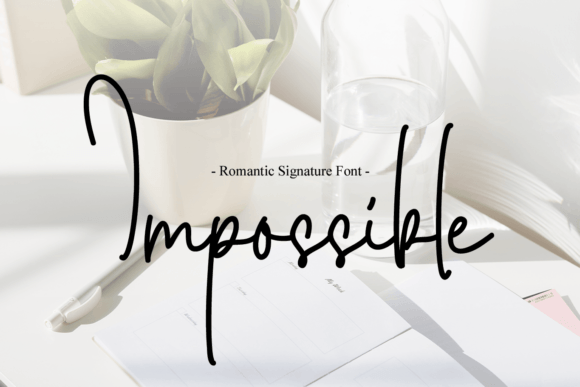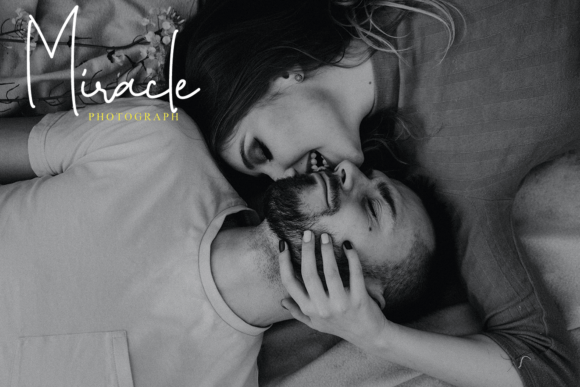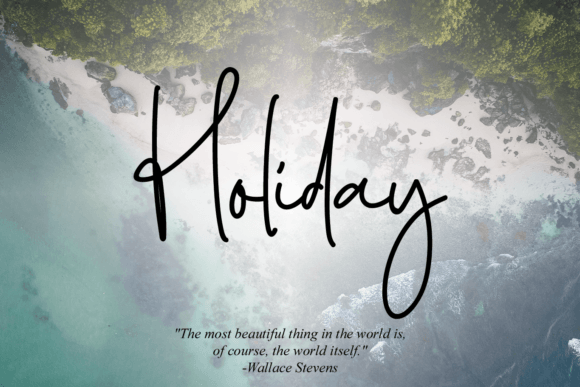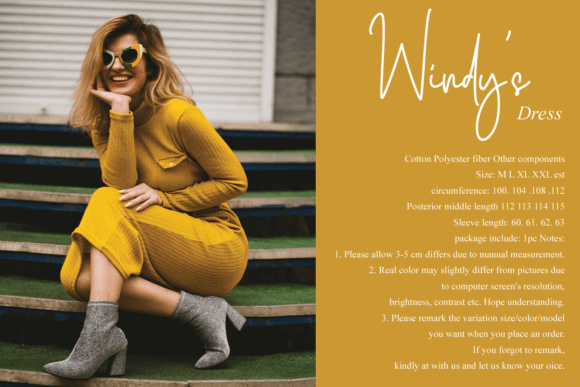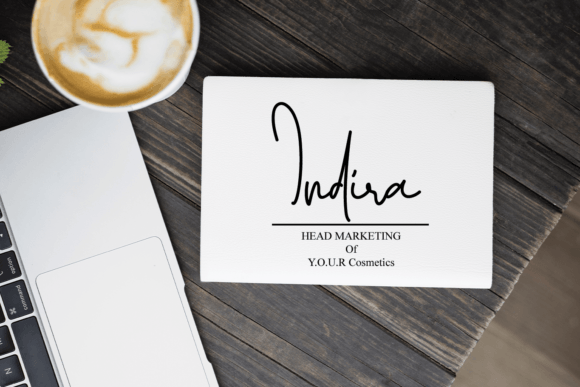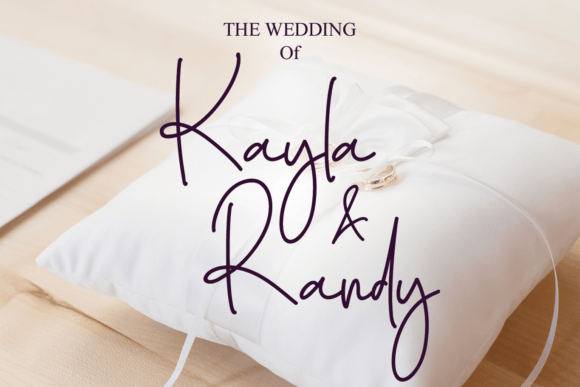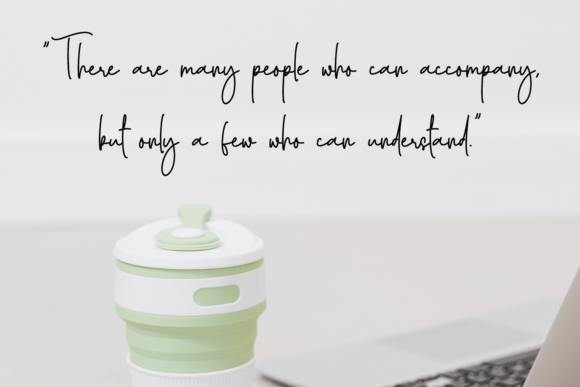
Impossible Font
About Impossible Font
“Impossible Font: Exquisite Handwritten Elegance with Contemporary Freshness
Introducing Impossible, an exquisite handwritten font masterfully designed to stand out as a true favorite in your font collection. This font maintains its classy calligraphic influences while embracing a contemporary and fresh feel. Impossible is more than just a font; it’s a design masterpiece that effortlessly combines timeless elegance with a modern twist.
The careful design of Impossible ensures that it exudes elegance, making it an ideal choice for projects that demand a balance of sophistication and contemporary appeal. The classic calligraphic influences are seamlessly blended with a fresh and modern aesthetic, creating a harmonious and versatile font.
The versatility of Impossible shines through in its ability to enhance the visual appeal of diverse projects. Whether you’re working on digital graphics or tangible items, Impossible adapts effortlessly to elevate the aesthetics of your designs.
For logo design and branding projects, Impossible becomes a distinctive choice, adding a touch of individuality and timeless elegance. The font’s balance of classic and contemporary elements makes it suitable for creating memorable and impactful brand identities.
In various creative endeavors, such as invitations, cards, and more, Impossible brings a sense of sophistication and freshness, making it visually appealing and engaging. Its exquisite handwritten style is versatile, allowing you to use it in a range of design applications.
In conclusion, Impossible is more than just a font; it’s a design companion that brings exquisite handwritten elegance with a contemporary and fresh twist to your creative toolkit. Let Impossible be the brushstroke that enhances the beauty of your projects. Embrace the versatility and classic yet modern charm of Impossible, and watch as it transforms your ideas into visually enchanting experiences.”